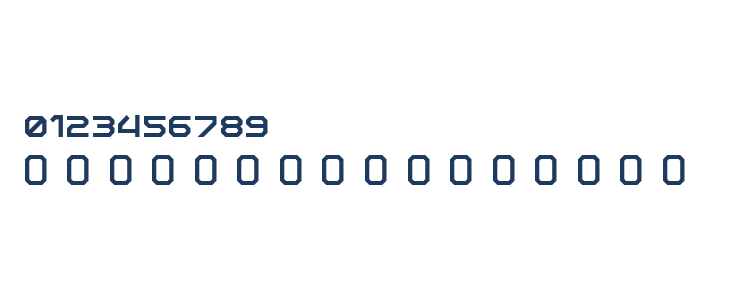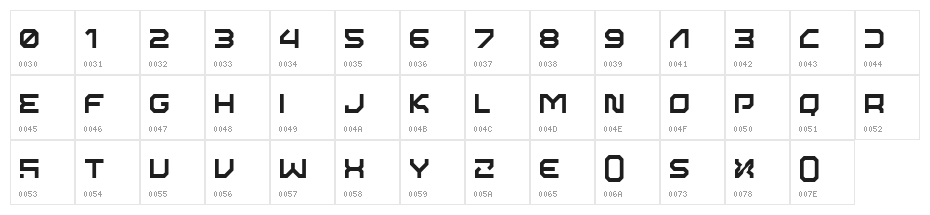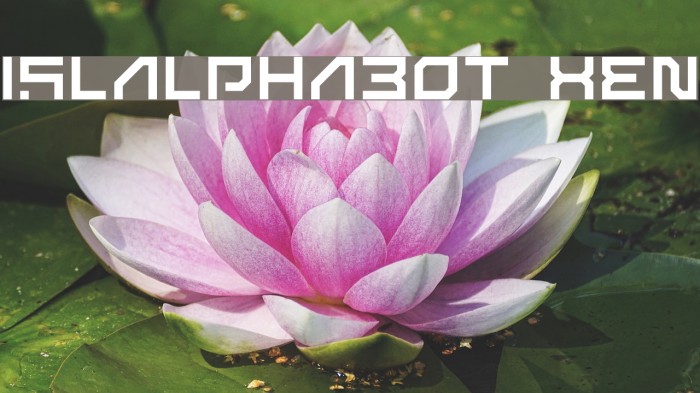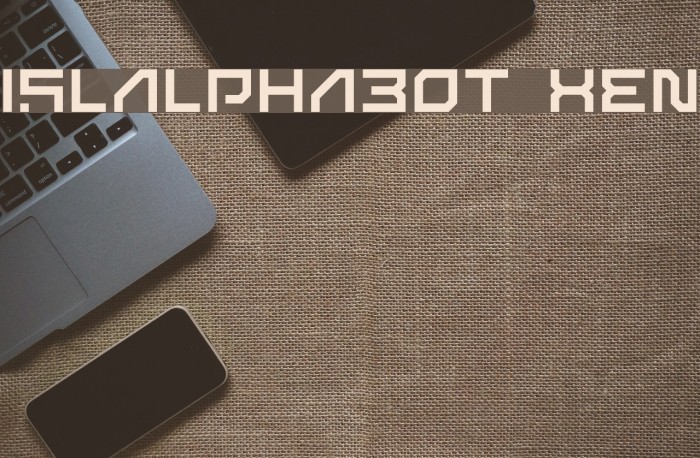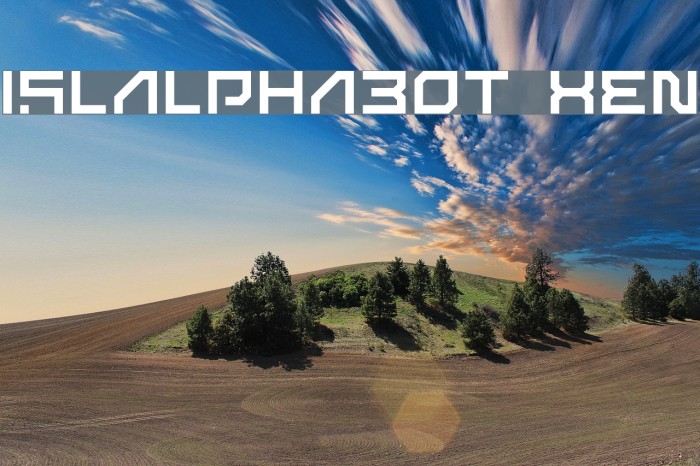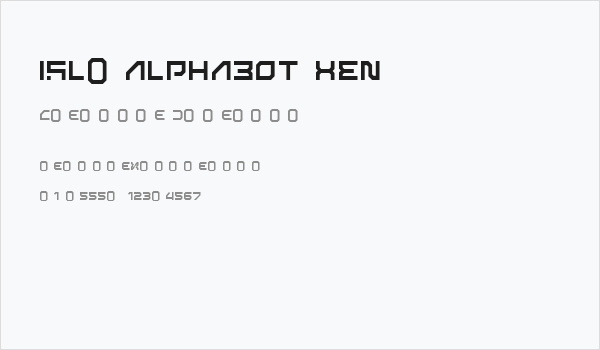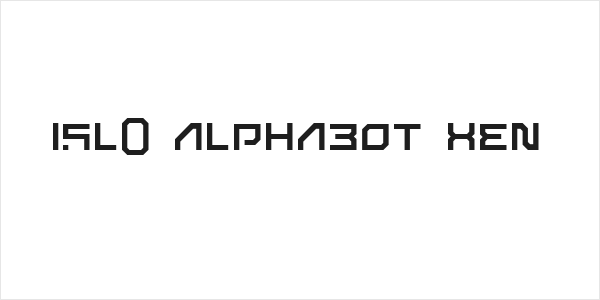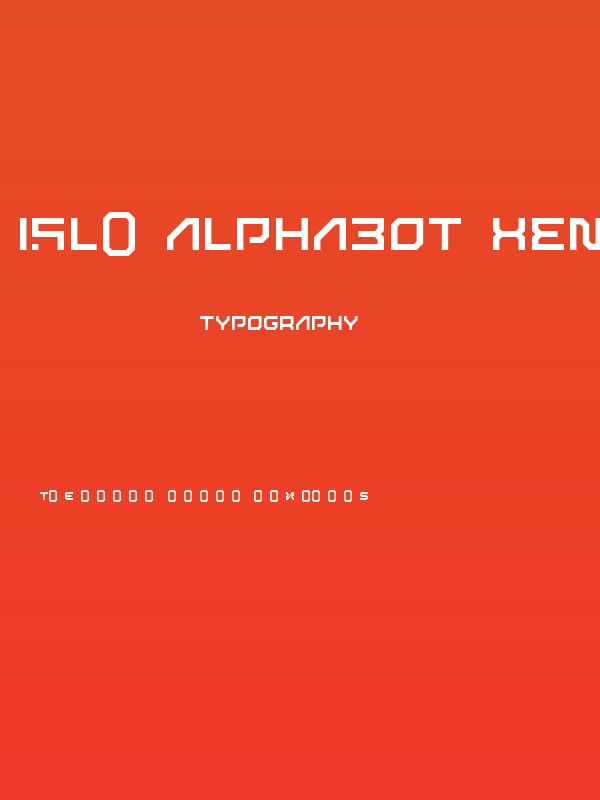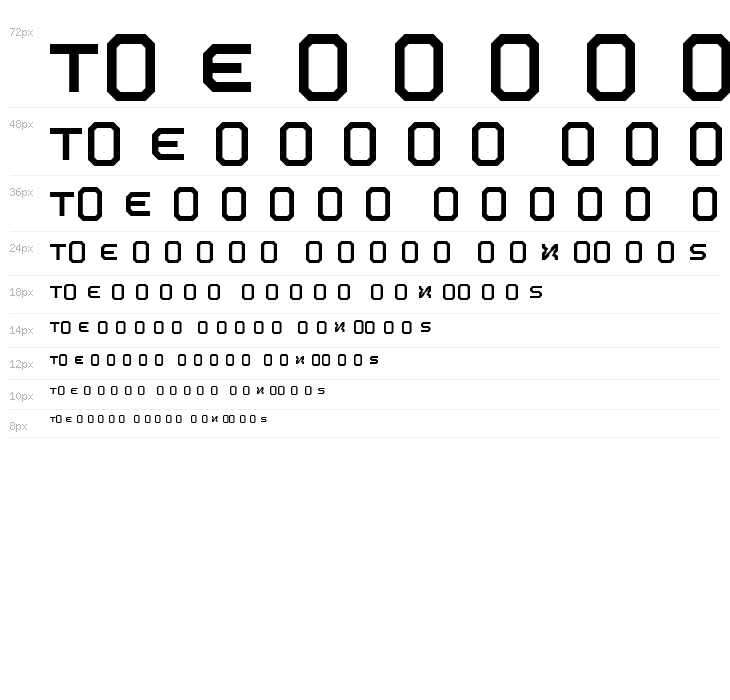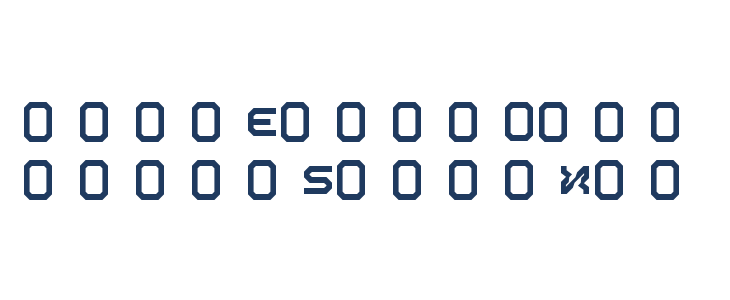
ISL_ALPHABOT XEN Font
ISL_ALPHABOT XEN Description
This font features a futuristic and geometric design, characterized by sharp angles and a bold presence. The letters are constructed with a consistent thickness, giving them a uniform and cohesive look. The style is reminiscent of digital or sci-fi themes, making it ideal for projects that require a modern and technological aesthetic. The characters are evenly spaced, ensuring readability while maintaining a distinct and edgy appearance. The numbers and special characters follow the same design principles, providing a comprehensive and versatile typeface.
| Use Case | Headlines, Logos, Digital interfaces |
| Proposed Projects | Ideal for technology-themed projects, sci-fi posters, video game titles, and digital interfaces. |